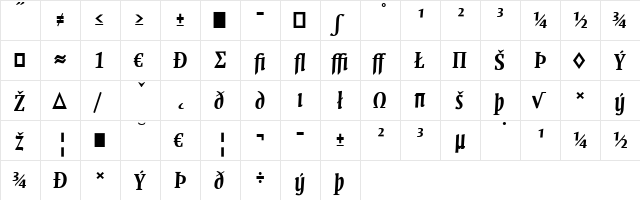
QuadraatDis Italic
Design Context for QuadraatDis Typeface
QuadraatDis offers clean, dependable letterforms without strong stylistic allegiance, making it a practical choice for designers who need flexibility. The dynamic lean of this cut emphasises speed and emphasis in any layout.
Pro Tip: Try QuadraatDis for annotation and caption copy alongside an upright companion — the contrast in angle creates a dynamic but ordered typographic system.